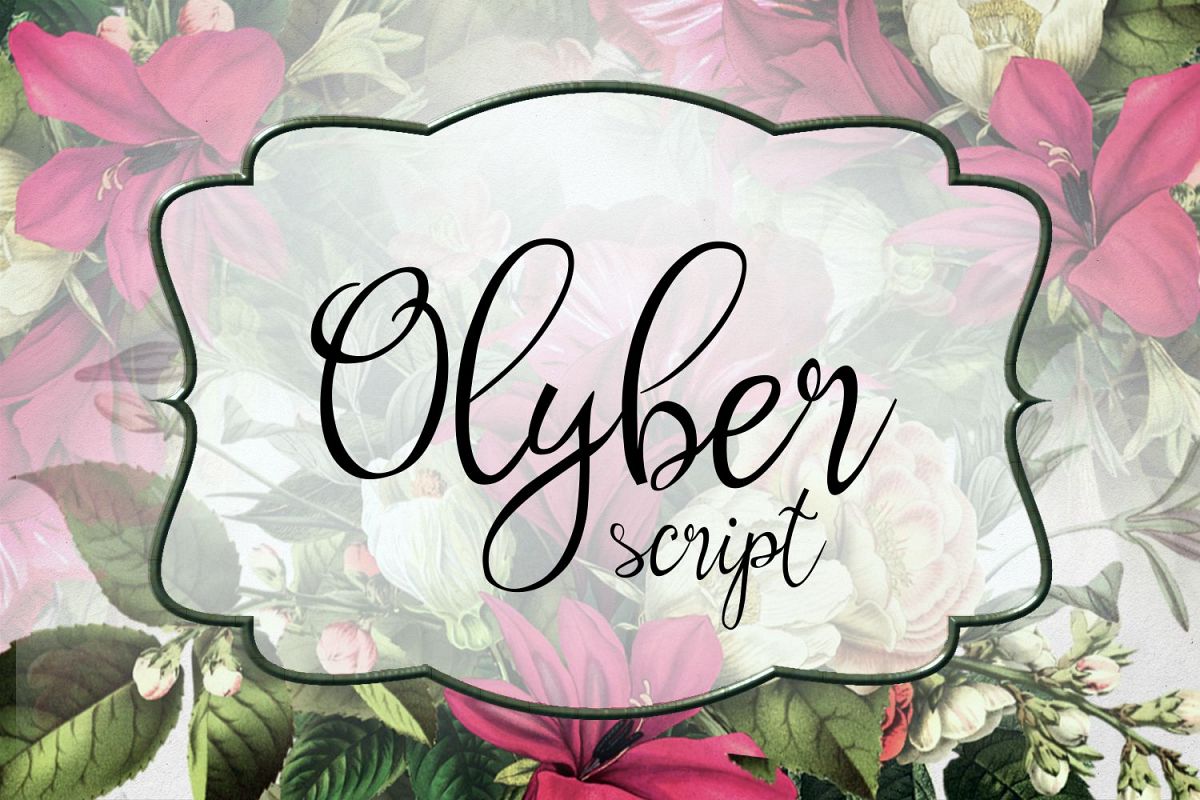
Olyber
Introducing Olyber handwritten typeface.
Olyber is great for cards and invitations, also great for many craft area such as stencils, engraving, laser cutting and more!